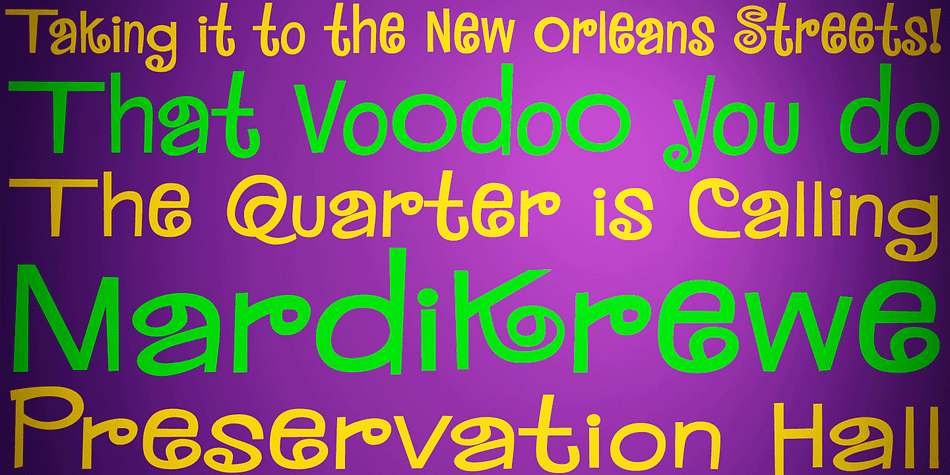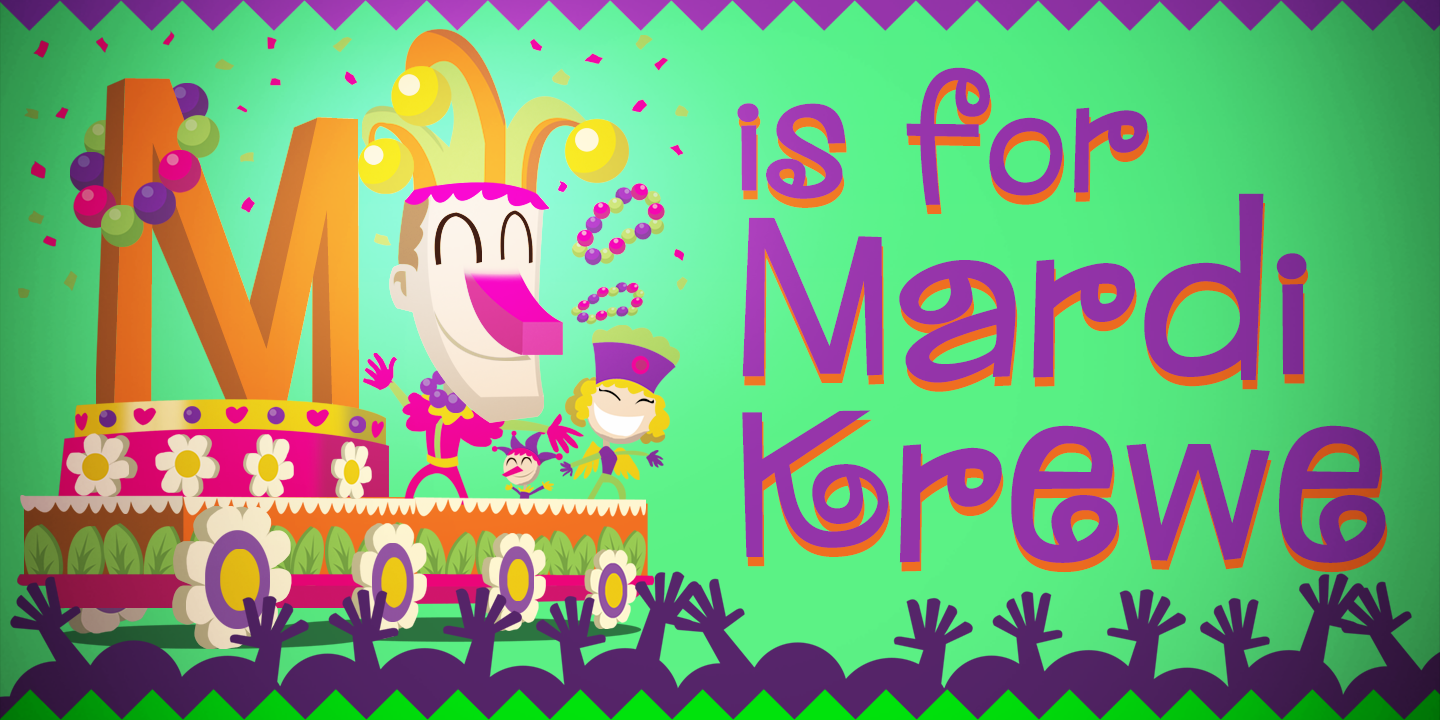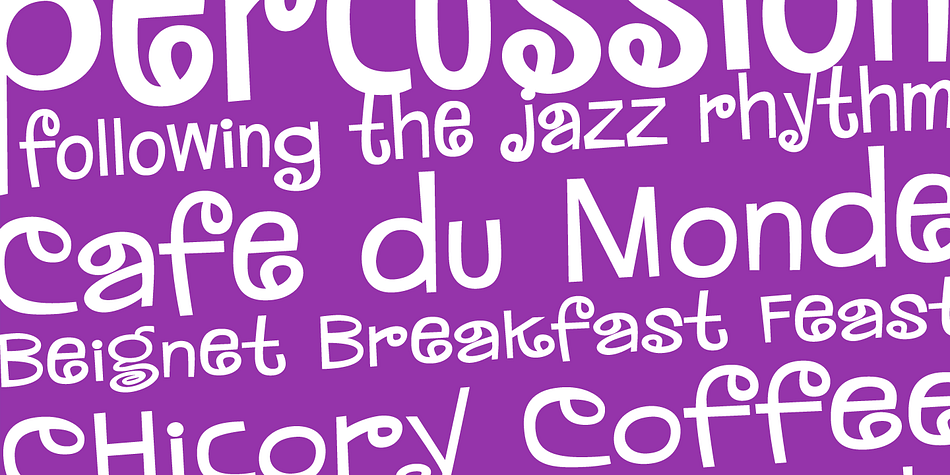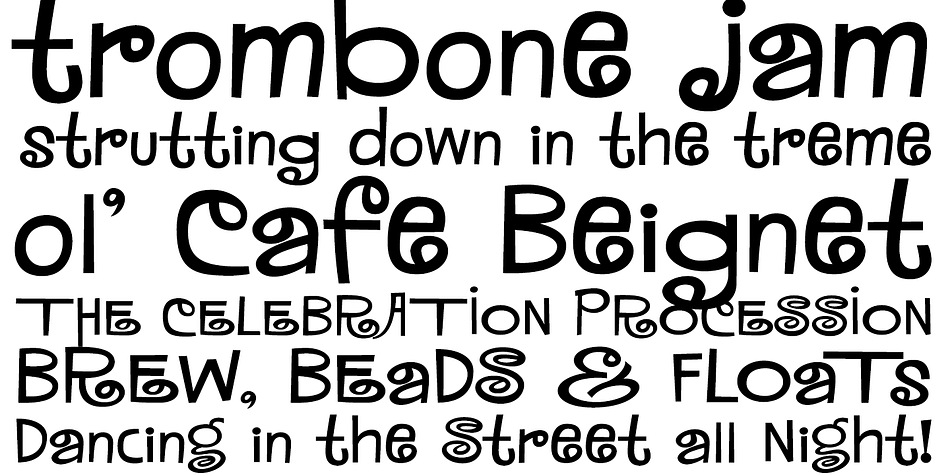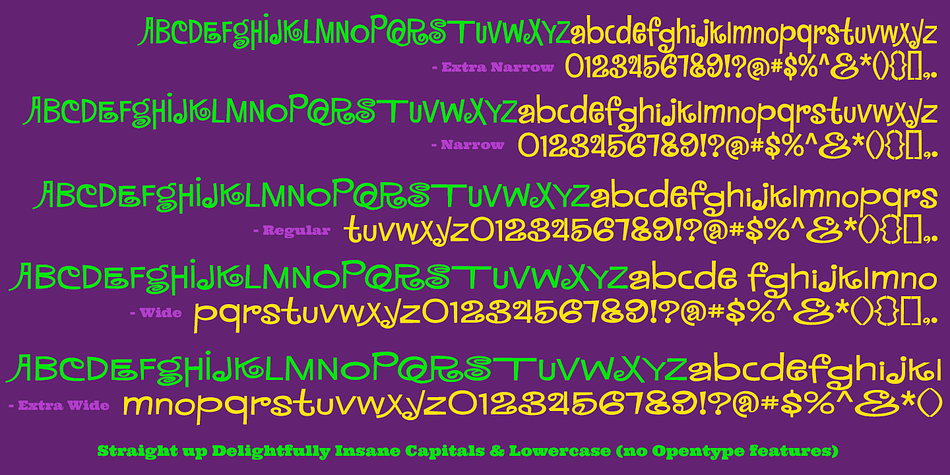
Designed by Phil Bracco, MardiKrewe PB is a hand drawn font family. This typeface has five styles and was published by Pink Broccoli.
Wild and carefree, the MardiKrewe Family is filled with spunk and personality. MardiKrewe started as a digitization of a film typeface called MardiGras by Lettergraphics. From there, this lively typeface was fleshed out to a full character set and expanded to a family of 5 widths: Extra Narrow, Regular, Wide, and Extra Wide to fit a variety of funktastic needs.